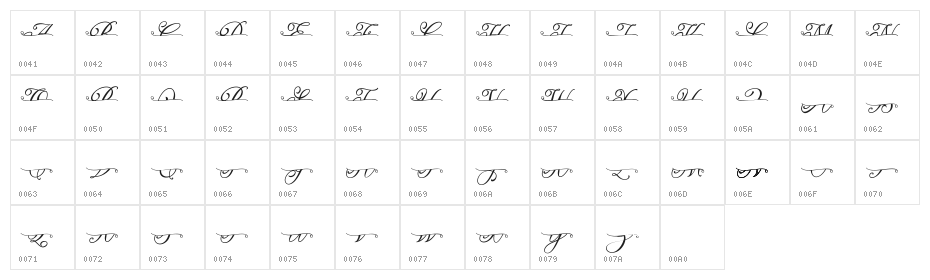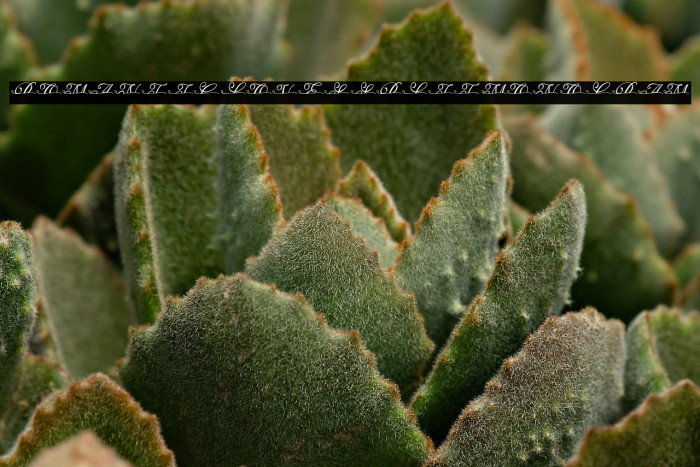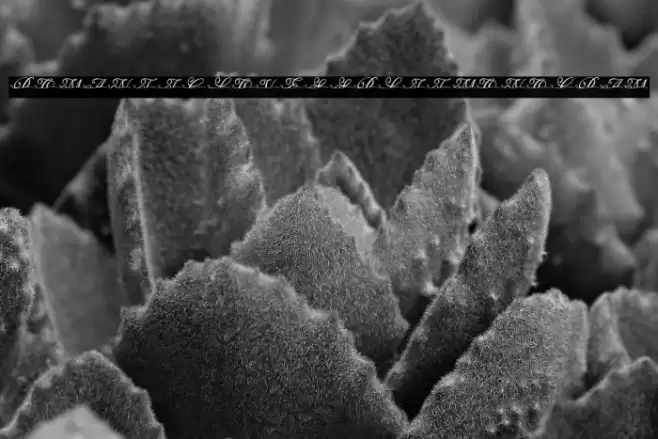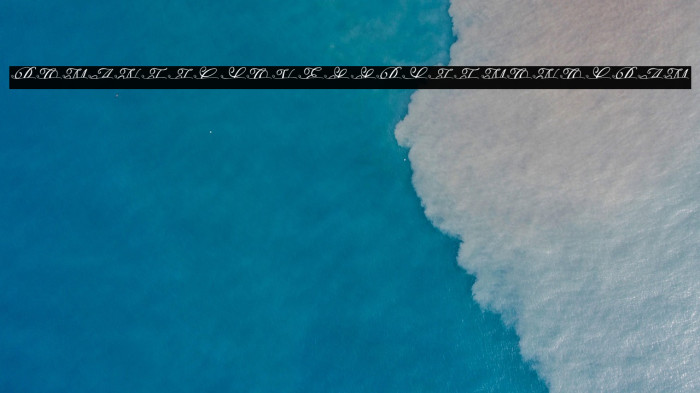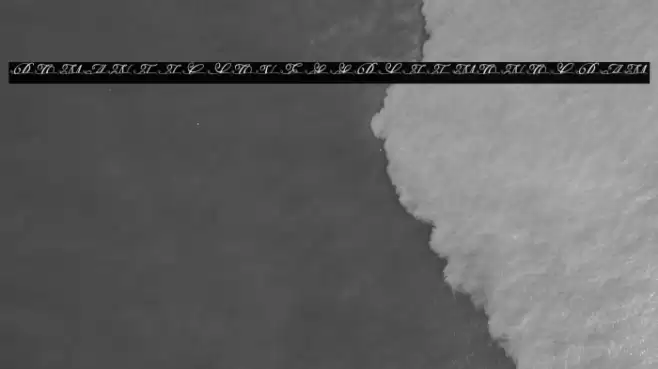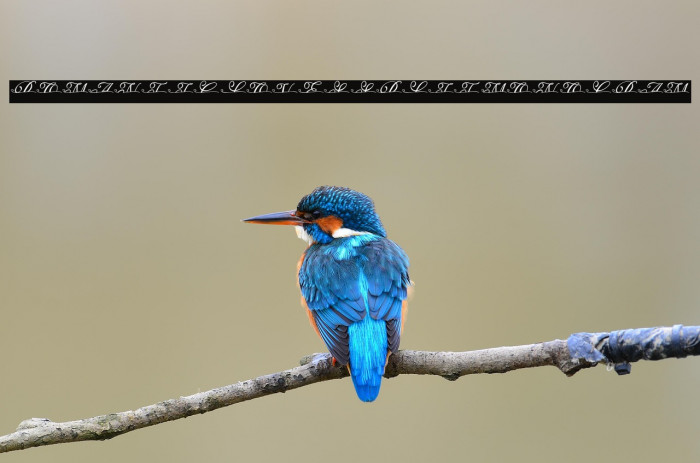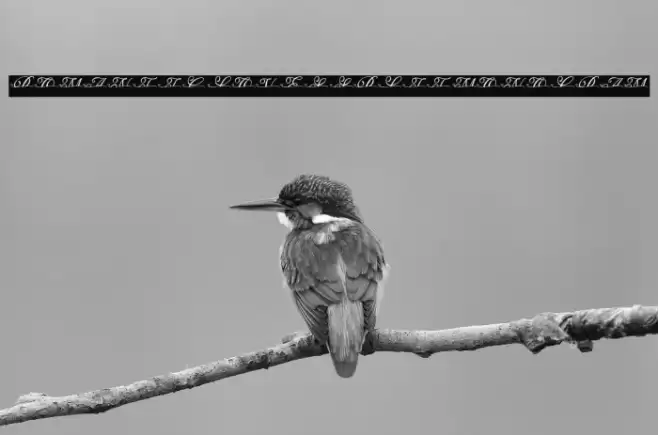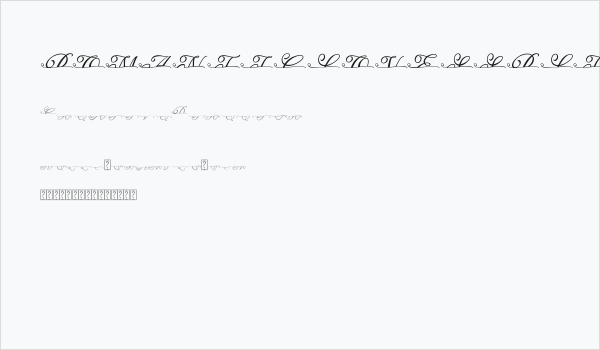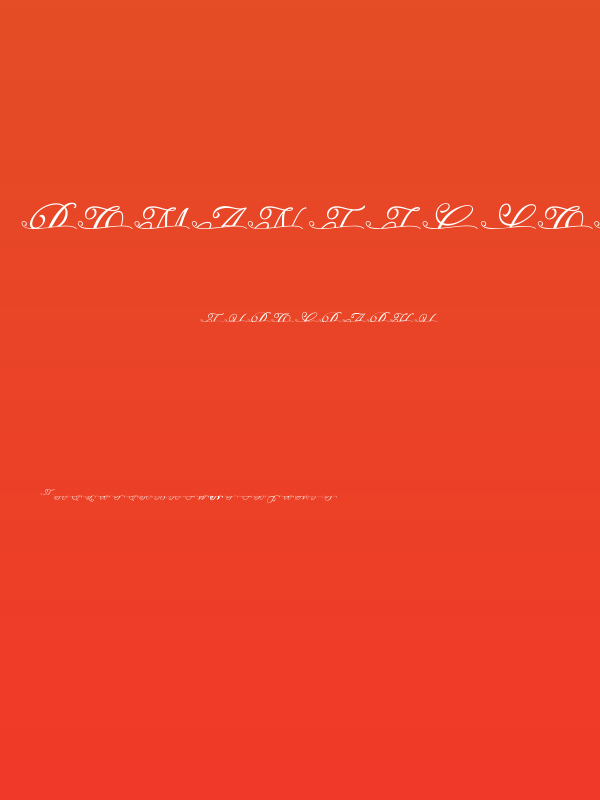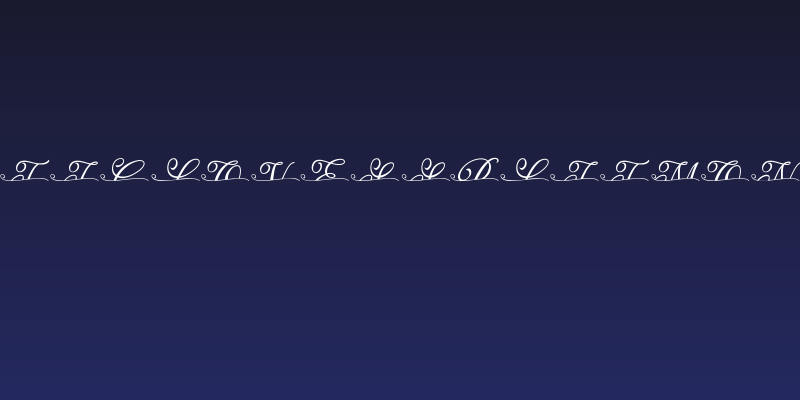
ROMANTIC LOVES SPLIT MONOGRAM Font
ROMANTIC LOVES SPLIT MONOGRAM Description
This elegant and decorative font features a romantic and sophisticated script style, characterized by its flowing, cursive letters adorned with intricate swirls and flourishes. Each character is split, creating a monogram effect that adds a touch of personalization and charm. The uppercase letters are particularly ornate, making them ideal for creating standout initials or decorative elements. The lowercase letters maintain the same graceful style, ensuring consistency throughout the text. This font is perfect for projects that require a touch of elegance and romance, such as wedding invitations, greeting cards, or personalized gifts.
| Proposed Projects | Ideal for wedding invitations, personalized gifts, greeting cards, and decorative monograms. |